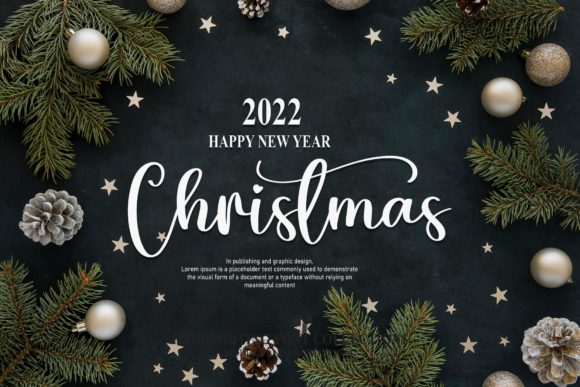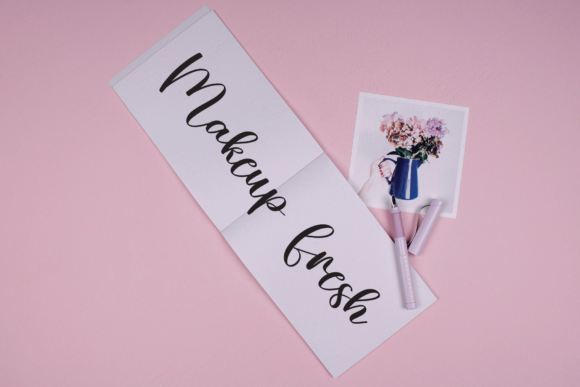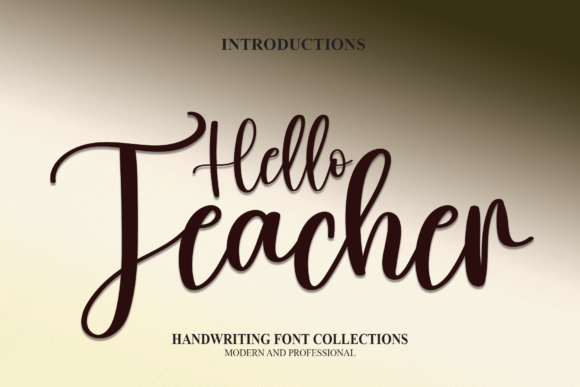
Hello Teacher Font
db-ku.com - Script & Handwritten -- Hello Teacher is a flowing and chic script font. This gentle font will look gorgeous on a variety of design ideas. It will add a joyful and romantic touch to each of your projects!